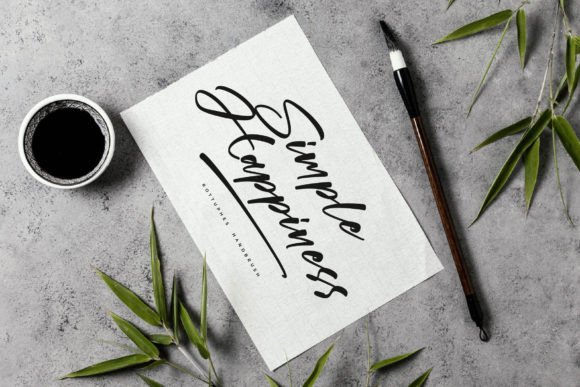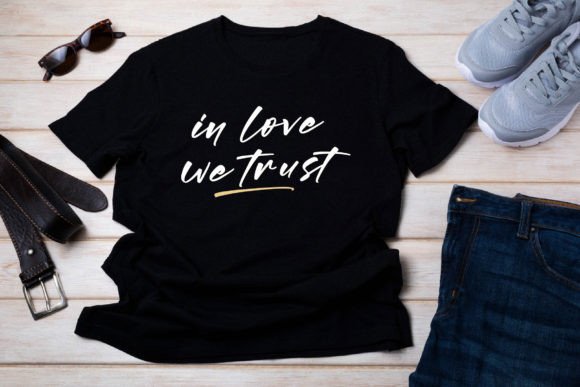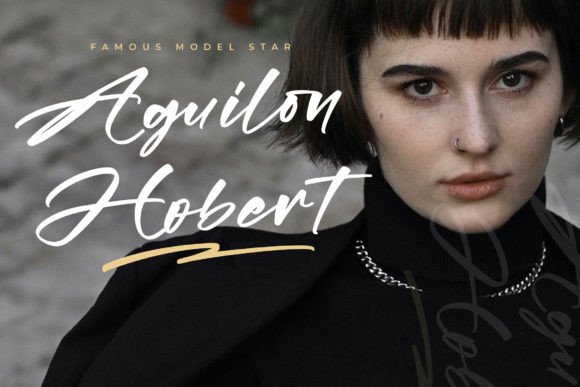
Introduction to Rottuphes Font
Have you ever been in the middle of a creative project, pouring your heart and soul into a design, only to feel like something is missing? A certain je ne sais quoi that elevates your work from good to great? For many designers, that missing piece is the perfect font. Enter Rottuphes Font, an exquisite handwritten font that is sure to become a true favorite.
Masterfully designed to balance classy calligraphic influences with a fresh, contemporary feel, Rottuphes Font is the perfect design resource for any creative project. Whether you’re working on a logo, a brochure, or a website, this high-quality font is sure to add a touch of elegance and sophistication. With its transparent background, Rottuphes Font is the perfect choice for designers who want to create visually stunning designs without any distractions.
Key Features of Rottuphes Font
- Unique, hand-drawn design with a touch of elegance and sophistication
- Perfect for use in various creative projects, including graphic design, digital art, and more
Honest Review: Rottuphes Font
I recently had the opportunity to try out the Rottuphes Font, and I must say it’s been a game-changer for my creative projects. As a designer, I’m always on the lookout for high-quality fonts that can elevate my designs and make them stand out. The Rottuphes Font definitely delivers.
- ✨ High-quality design that’s perfect for a variety of creative projects
- ⚠️ Limited character set, which may not be suitable for projects that require a wide range of characters
Overall, I’m thoroughly impressed with the Rottuphes Font. It’s a high-quality design resource that’s perfect for a wide range of creative projects. While it may have some limitations, I believe the benefits far outweigh the drawbacks. If you’re looking for a reliable and versatile font, I highly recommend giving the Rottuphes Font a try.
The Rottuphes Font is a high-quality design resource perfect for creative projects that require a unique touch. With its transparent background and sleek design, it’s an ideal choice for graphic designers, artists, and marketers.
The Rottuphes Font is perfect for creating eye-catching graphics, logos, and branding materials. It’s also great for use in presentations, social media posts, and marketing materials.